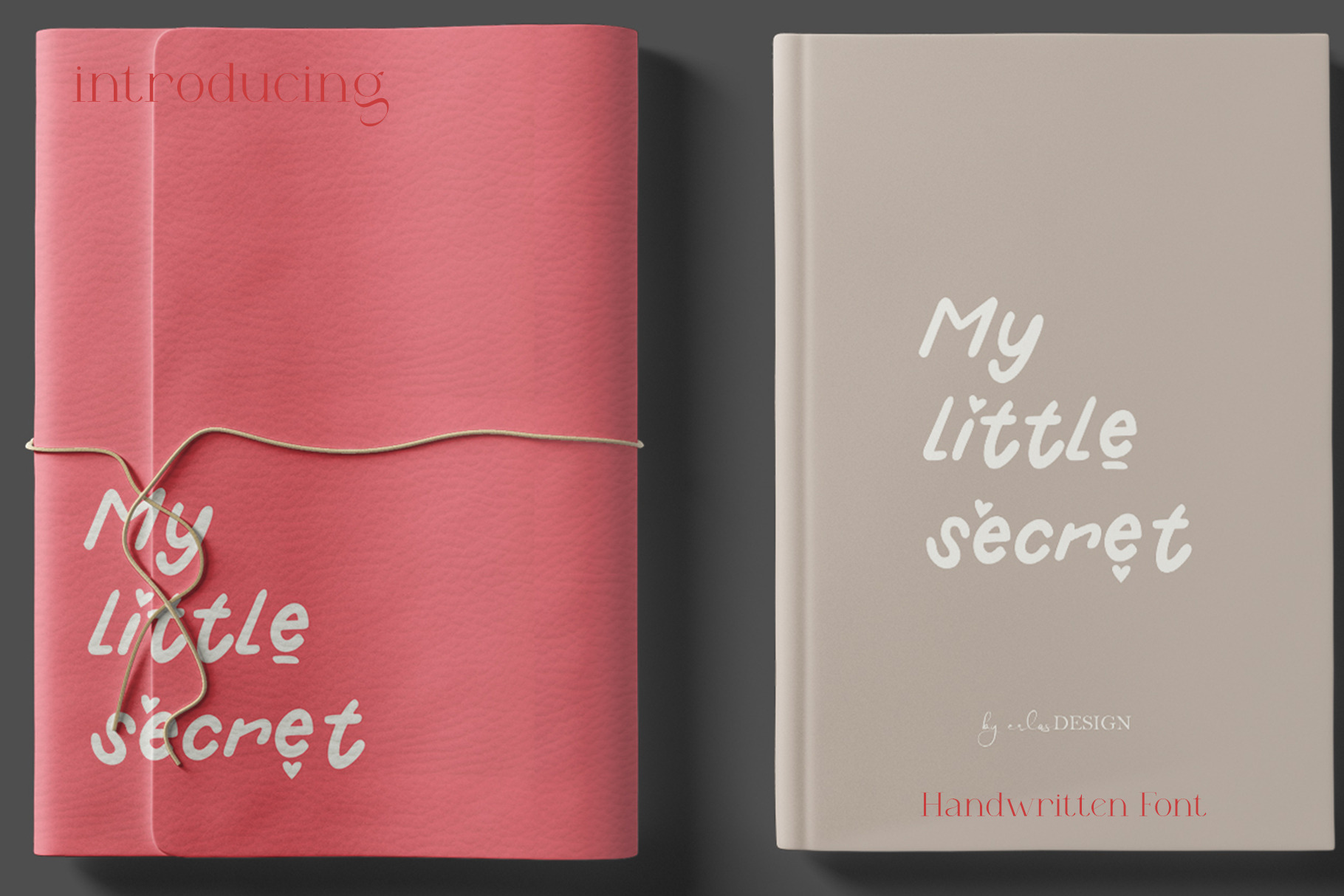
My Little Secret - Handwritten Font
My Little Secret - Display Handwritten Font by erlosDESIGN
My Little Secret is a sweet and friendly handwritten font. Its natural and unique style makes it incredibly fitting to a large pool of designs. The only limit is your imagination!